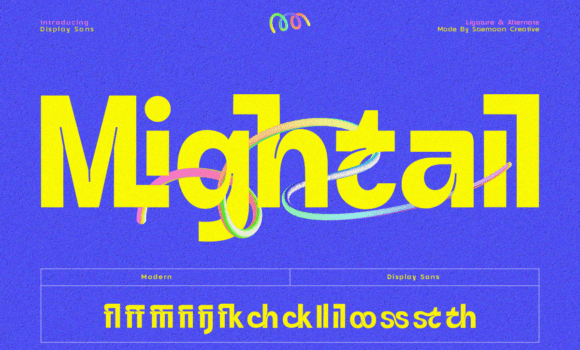
mightail
Mightail Font – Free Download Introduction to Mightail Font Mightail is a display sans-serif font that blends bold shapes with modern inktrap details, delivering a strong and distinctive appearance. 📸 Preview Gallery 6 images 📌 Product Name Mightail Font 👤